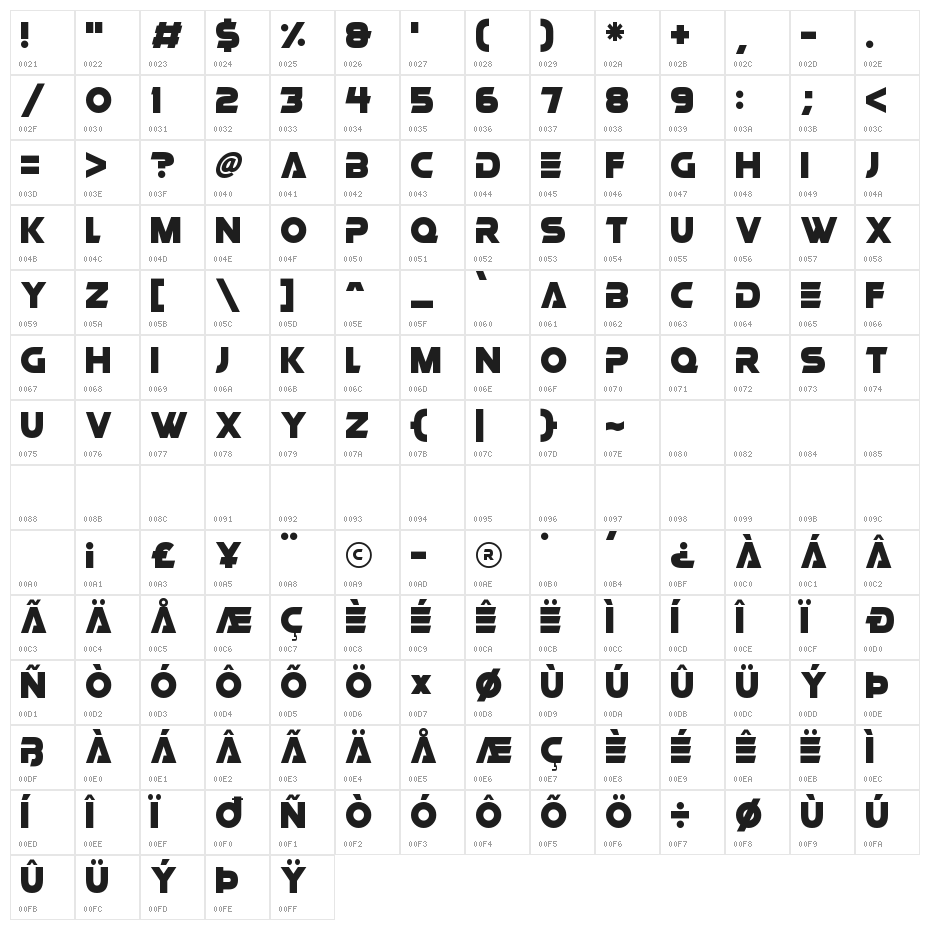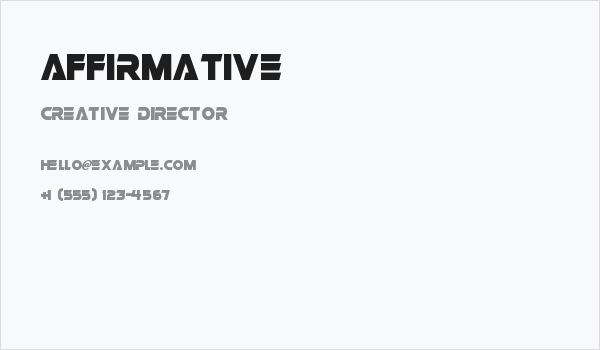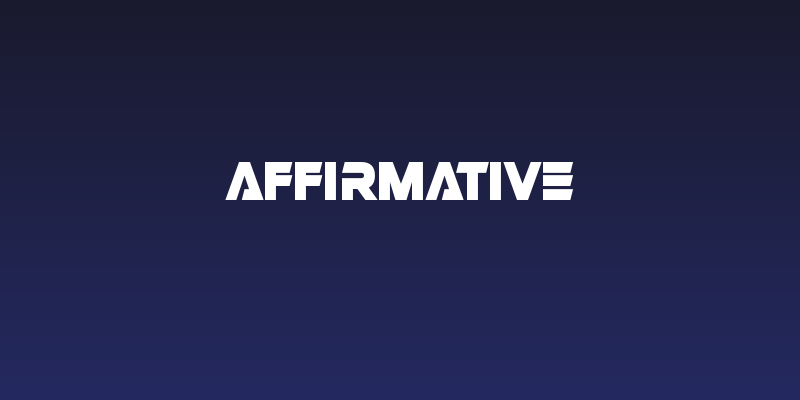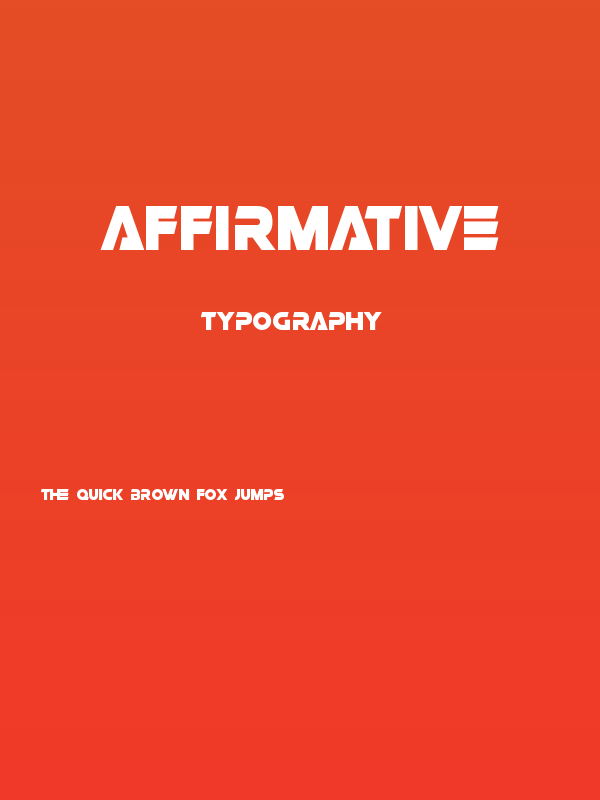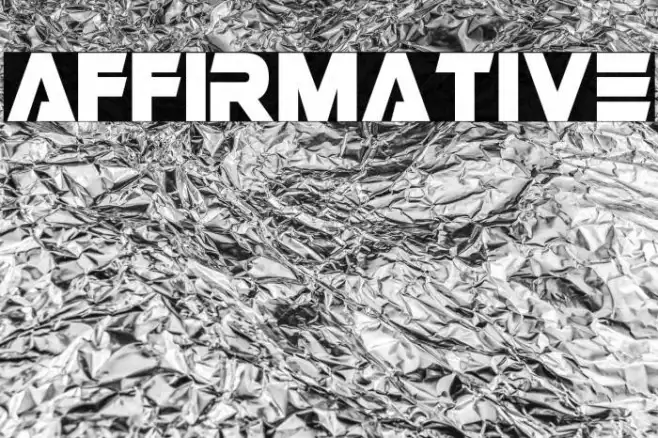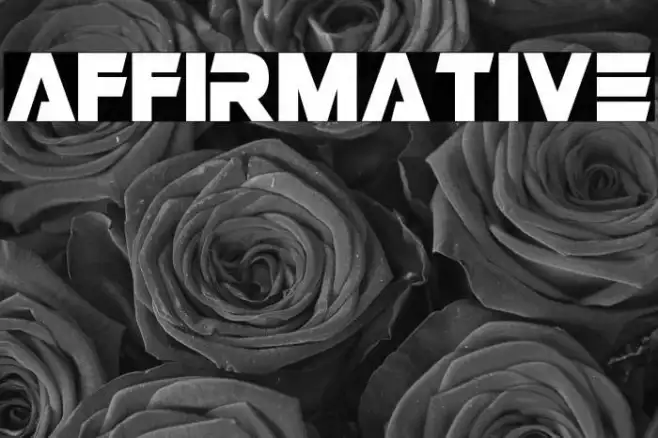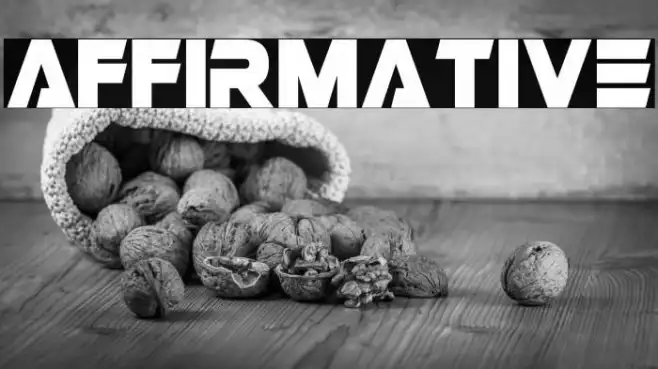
Affirmative Font
Affirmative Description
This font features a bold and modern design with a strong geometric influence. The characters are constructed with thick, uniform strokes, giving them a robust and impactful appearance. The angular cuts and sharp edges add a futuristic touch, making it stand out in any design. The uppercase and lowercase letters maintain a consistent style, ensuring readability while retaining a unique aesthetic. The numerals and special characters are designed to match the boldness and style of the alphabet, providing a cohesive look across all text elements.
| Proposed Projects | Ideal for branding, headlines, posters, and any design requiring a strong visual impact. |